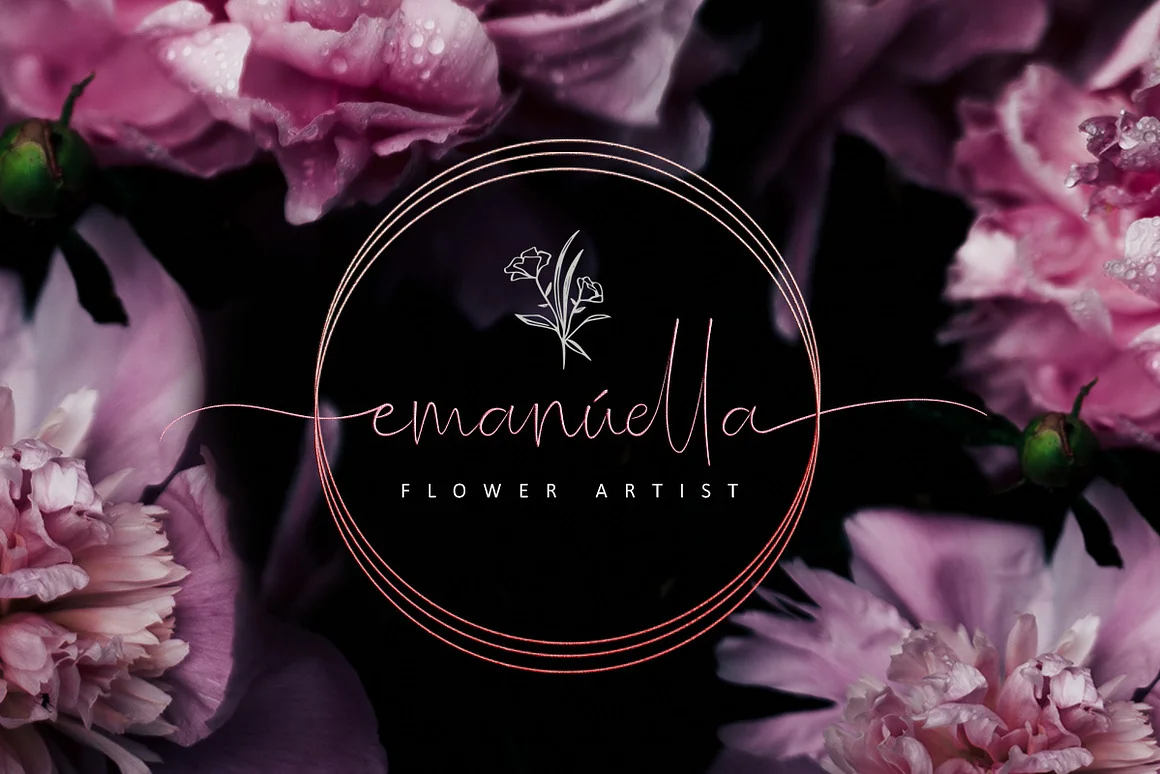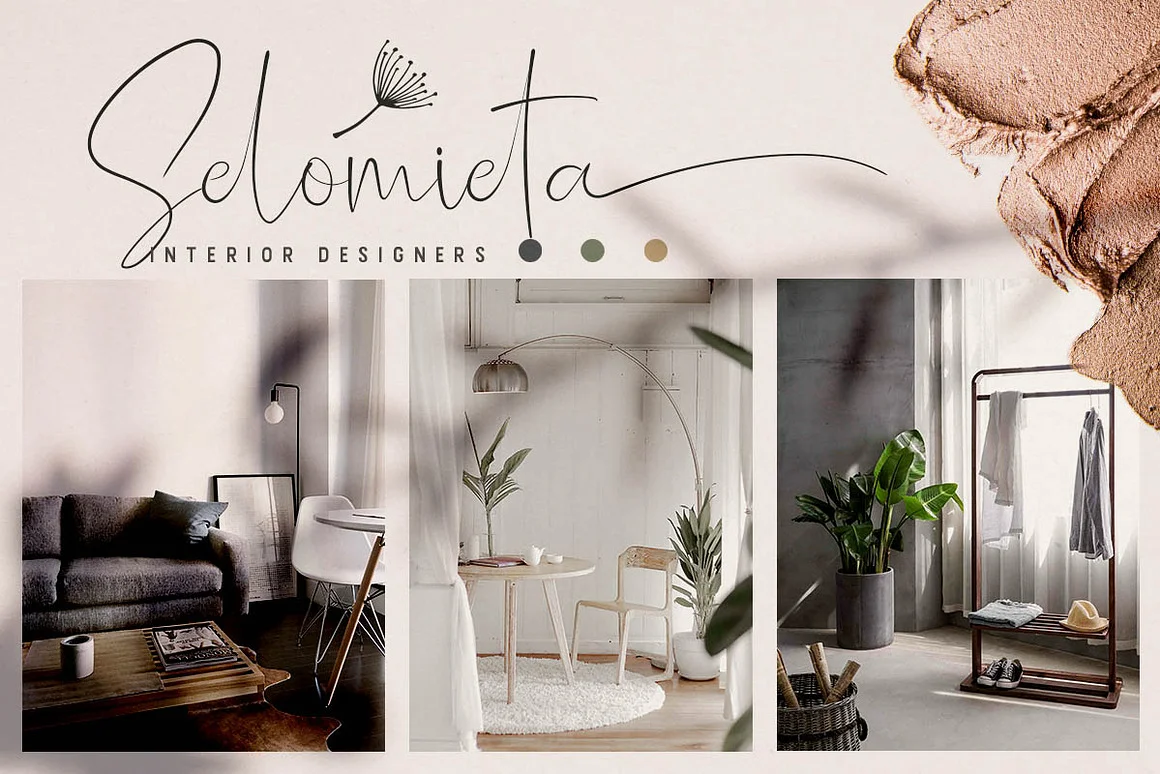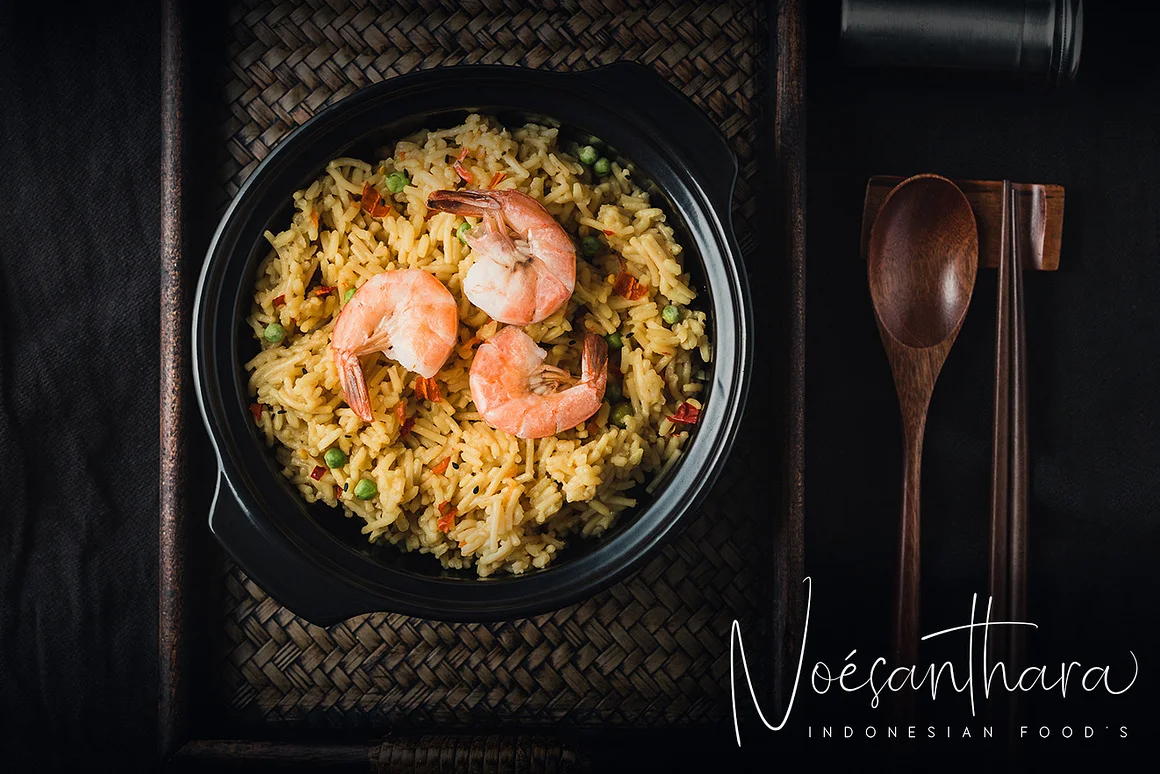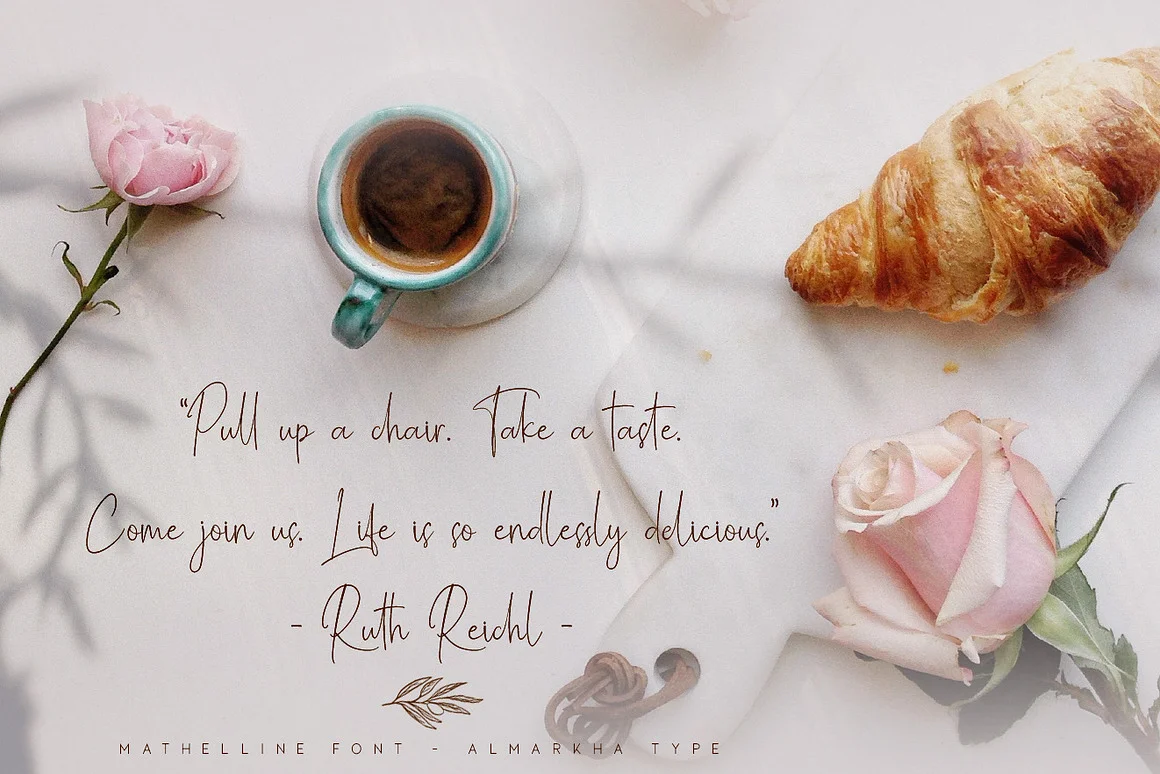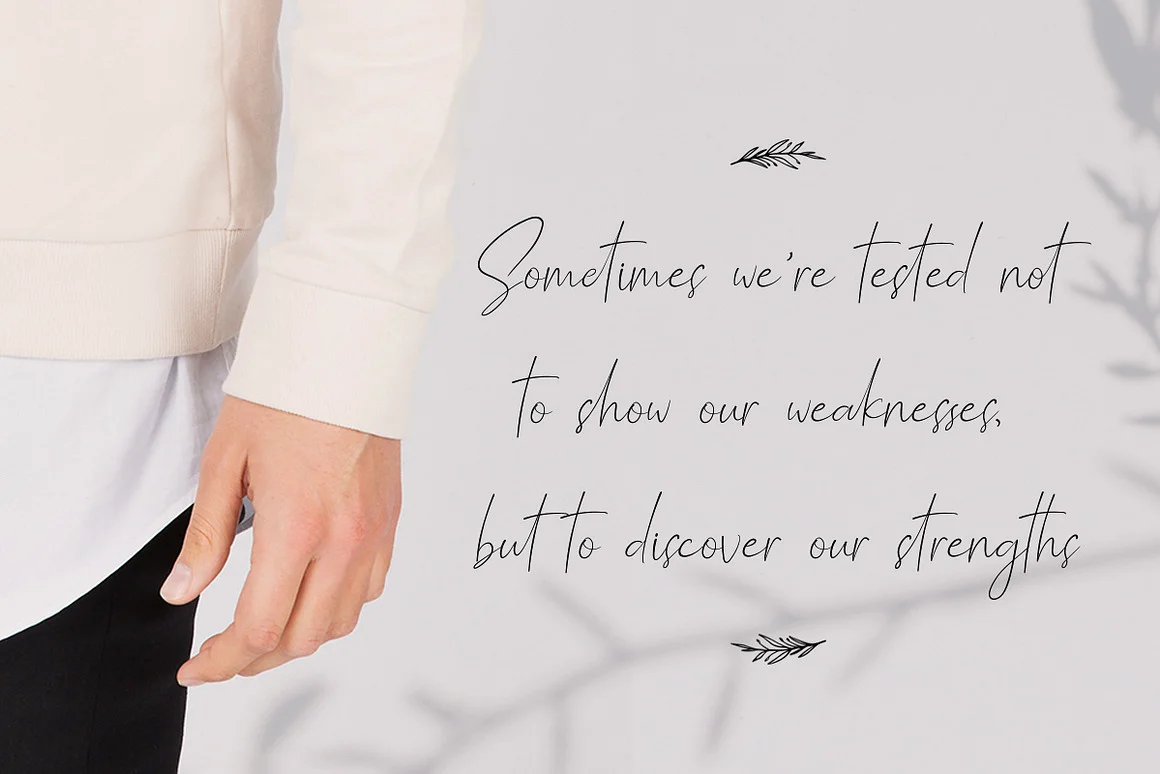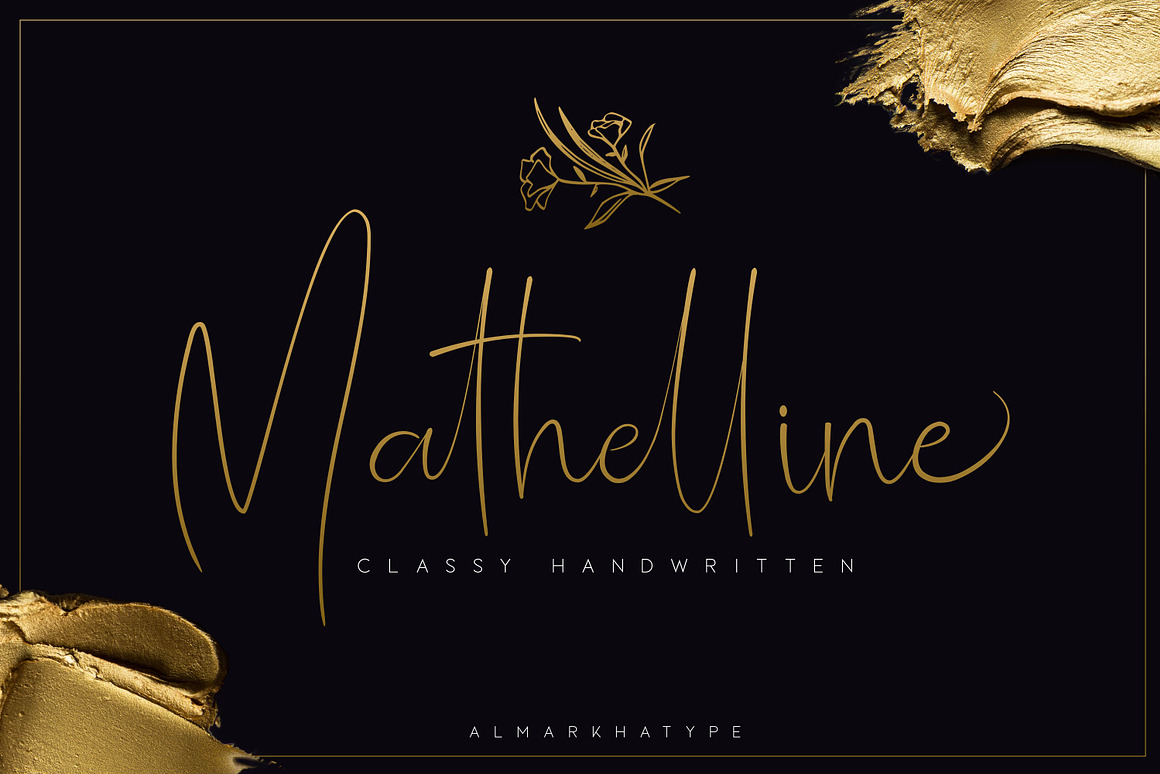
Mathelline - Classy Handwritten Font
Mathelline Classy Handwritten Font
This elegant typeface is perfect for logos, branding, wedding invitations, photography watermarks, and product packaging, offering a luxurious handwritten style.
Mathelline Classy Handwritten Font excites designers with its delicate, cursive design, adding a touch of luxury and artistry to any project.
The Mathelline Classy Handwritten Font family includes Regular and Italic variants, providing versatile options for creative designs.
When it comes to typography that exudes sophistication, Mathelline Classy Handwritten Font is a top choice for designers seeking a refined, handwritten aesthetic. Inspired by luxury and branding, this font’s flowing, cursive style makes it ideal for projects that demand elegance and personality. Whether you’re crafting a high-end logo or a romantic wedding invitation, Mathelline Classy Handwritten Font delivers unparalleled charm.
This font shines in applications like branding, where its classy letterforms create memorable logos and product labels. It’s also perfect for photography watermarks, stationery, and social media graphics, where its delicate strokes add a personal touch. Designers in industries like fashion, beauty, and event planning love its ability to elevate both print and digital designs with a luxurious feel.
The excitement around Mathelline Classy Handwritten Font lies in its ability to combine artistry with functionality. Its thin, flowing strokes and natural cursive appearance give designs a handcrafted, authentic vibe, making it ideal for projects that need to stand out. The font’s versatility ensures it works beautifully in both minimalist and ornate designs, offering a perfect balance of style and readability.
The Mathelline Classy Handwritten Font family includes two styles: Regular for a clean, elegant look and Italic for a dynamic, slanted flair. These variants allow designers to mix and match for creative flexibility, whether for headlines, accents, or body text.